The charm of classic newspapers never fades away, and their unique typography is crucial in creating an atmosphere of trust and genuineness. Canva provides a vast collection of fonts that replicate the classic newspaper look, making it easier for you to bring that vintage essence to your projects. This article explores 18 Canva fonts that are perfect for mimicking the classic newspaper style. These fonts offer an ideal mix of old-world charm and modern readability, whether you’re creating a newsletter, a poster, or a social media post.Â
1. The Seasons
Why it is a Classic Newspaper Font: This font, with its elegant and flowing script, captures the feel of personal editorials or feature articles in newspapers. Its classic calligraphy style adds a touch of sophistication, reminiscent of seasonal columns or special editions.
2. Engravers’ Old English
Why it is a Classic Newspaper Font: This font has a strong historical feel, evoking the look of early English newspapers. Its gothic, serif style brings an air of formality and tradition, making it ideal for prestigious or historical news sections.
3. Times New Roman
Why it is a Classic Newspaper Font: A quintessential newspaper font, Times New Roman is known for its readability and classic design. It became the standard for newspaper typography because of its serious tone and economic use of space.
4. Quattrocento
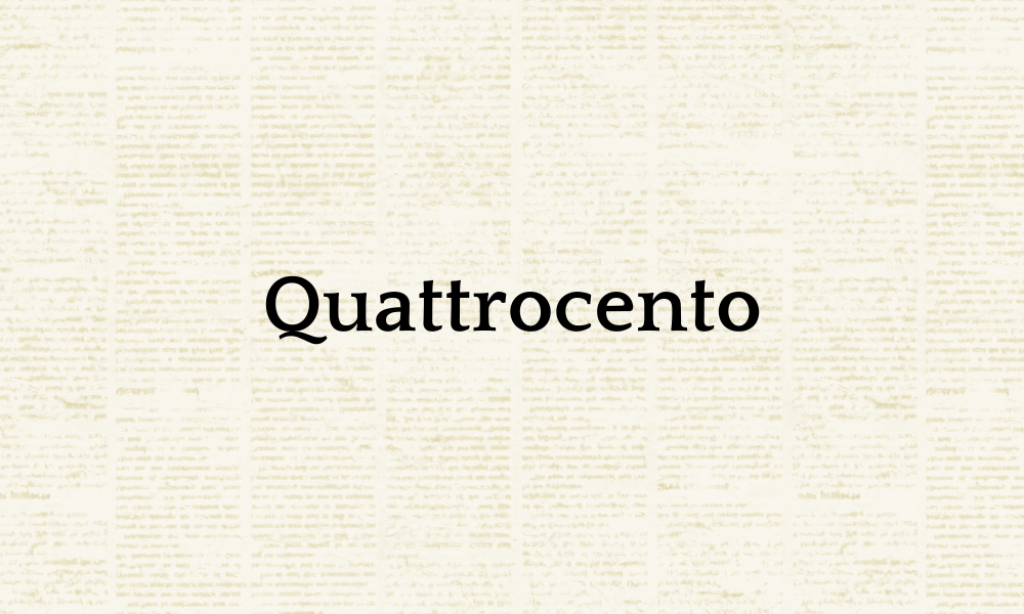
Why it is a Classic Newspaper Font: This font has a balanced and elegant style, suitable for body text. Its clear, readable design with Renaissance influences gives articles a timeless and authoritative appearance.
5. Solway
Why it is a Classic Newspaper Font: With its clear and functional style, Solway fits well in the context of modern newspaper design. Its legibility and clean appearance make it suitable for both headlines and body text.
6. Bookmania
Why it is a Classic Newspaper Font: A revival of classic book typefaces, Bookmania has a wide range of styles and weights, perfect for creating a hierarchical structure in newspaper layouts, from headlines to captions.
7. Rebolt Vintage
Why it is a Classic Newspaper Font: This font adds a touch of retro flair, reminiscent of newspapers from the early 20th century. Its vintage feel suits feature stories or special edition prints that aim to evoke nostalgia.
8. Cinzel Decorative
Why it is a Classic Newspaper Font: This font has a strong and bold look, inspired by classical Roman inscriptions. Its decorative elements make it stand out in headlines and announcements.
9. Dream Avenue
Why it is a Classic Newspaper Font: Offering a sleek and modern script, Dream Avenue brings a contemporary twist to the classic newspaper style, ideal for lifestyle sections or weekend editions.
10. Mak
Why it is a Classic Newspaper Font: With its clean and minimalistic design, Mak is suited for modern newspapers focusing on clarity and ease of reading, especially in digital formats.
11. Noto Serif Display
Why it is a Classic Newspaper Font: Part of the Noto font family, this serif font is designed for clear readability on screens and print, making it versatile for headlines and text in newspapers.
12. Courier PS
Why it is a Classic Newspaper Font: Reflecting the look of traditional typewritten text, Courier PS gives a monospaced, mechanical aesthetic, often used for tech or opinion columns.
13. Old Standard
Why it is a Classic Newspaper Font: This font mimics the classic serif typefaces used in 19th to early 20th-century literature and newspapers, providing a historical and academic fee
14. Fraunces
Why it is a Classic Newspaper Font: A variable font that offers a range of weights and styles, Fraunces is versatile for different newspaper elements, providing a touch of personality and readability.
15. Perandory
Why it is a Classic Newspaper Font: This font, with its unique and artistic style, can add a distinctive character to feature articles, interviews, or editorial sections, offering a break from the traditional look.
16. Goudy
Why it is a Classic Newspaper Font: Known for its classic and elegant style, Goudy is suitable for both text and headlines, providing a timeless look that resonates with traditional newspaper aesthetics.
17. Cochin
Why it is a Classic Newspaper Font: With its French old-style serif design, Cochin gives a sophisticated and formal touch to newspaper pages, ideal for editorials or historical articles.
18. Catchy Mager
Why it is a Classic Newspaper Font: This sans-serif font is modern and straightforward, providing a clean and contemporary look for newspapers that want a minimalist aesthetic.